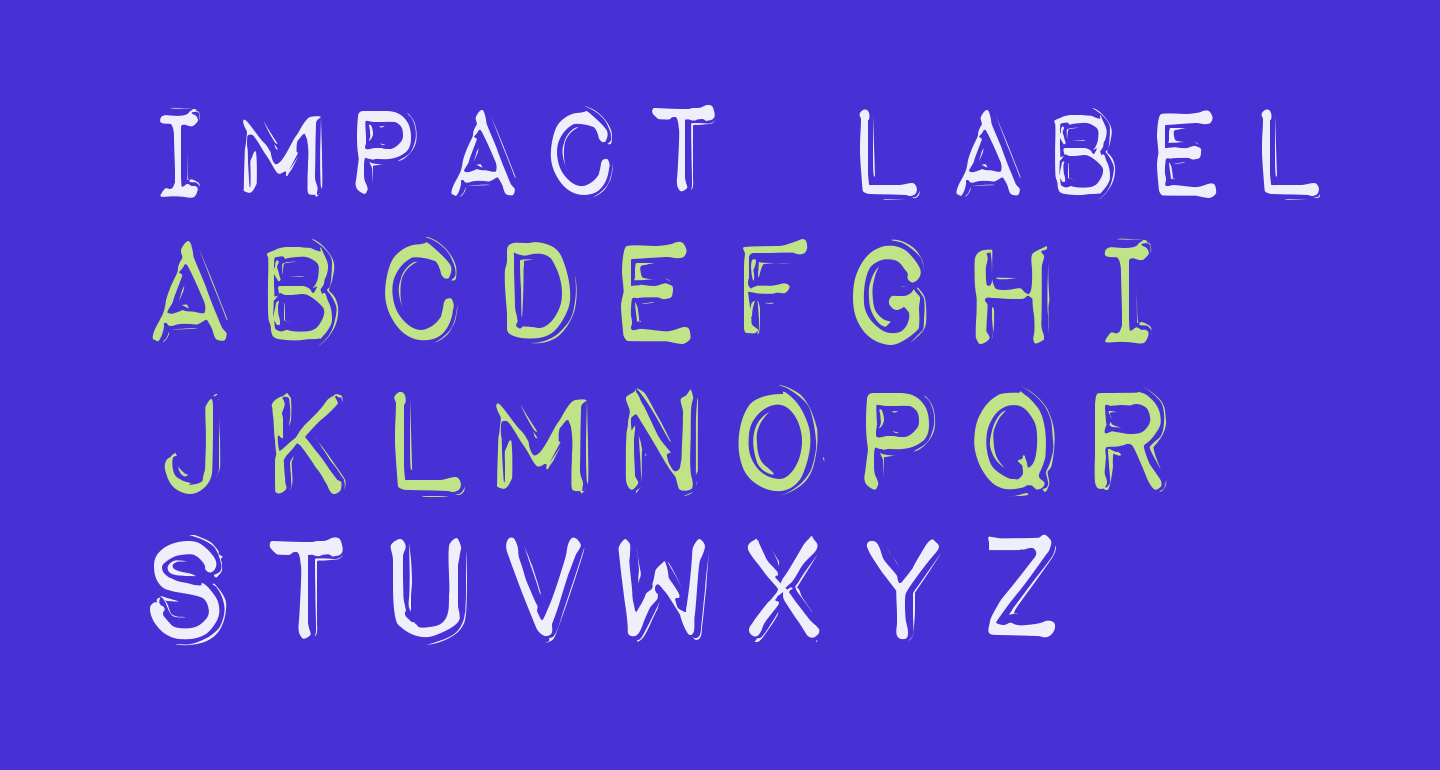
Impact Label Font Lowercase
Impact Label Font Lowercase. Tall boy is a playful handmade font to elevate your designs, logos, posters, apparel, and products. The font is licensed as free.
Free font "Impact Label" by Tension Type